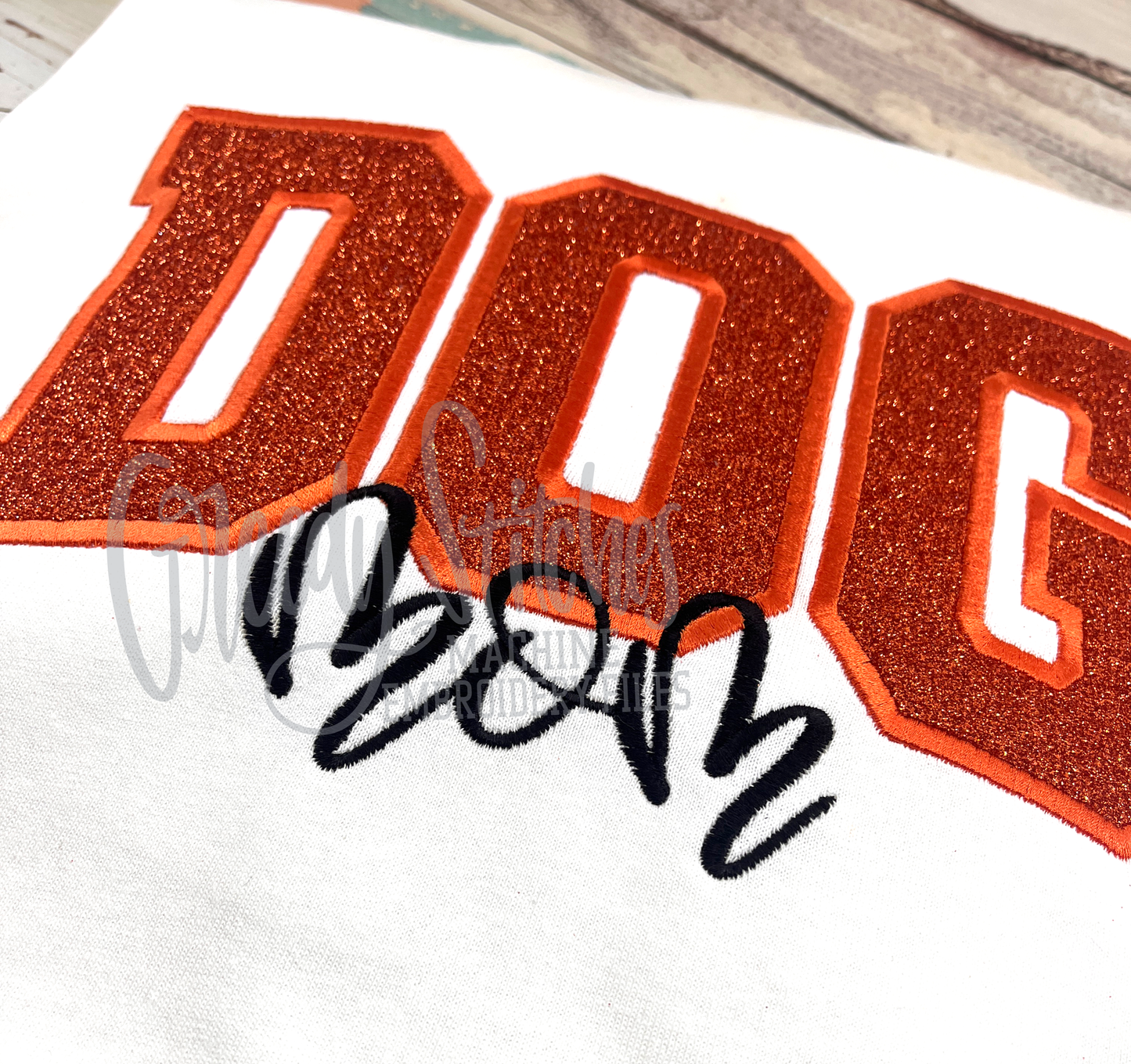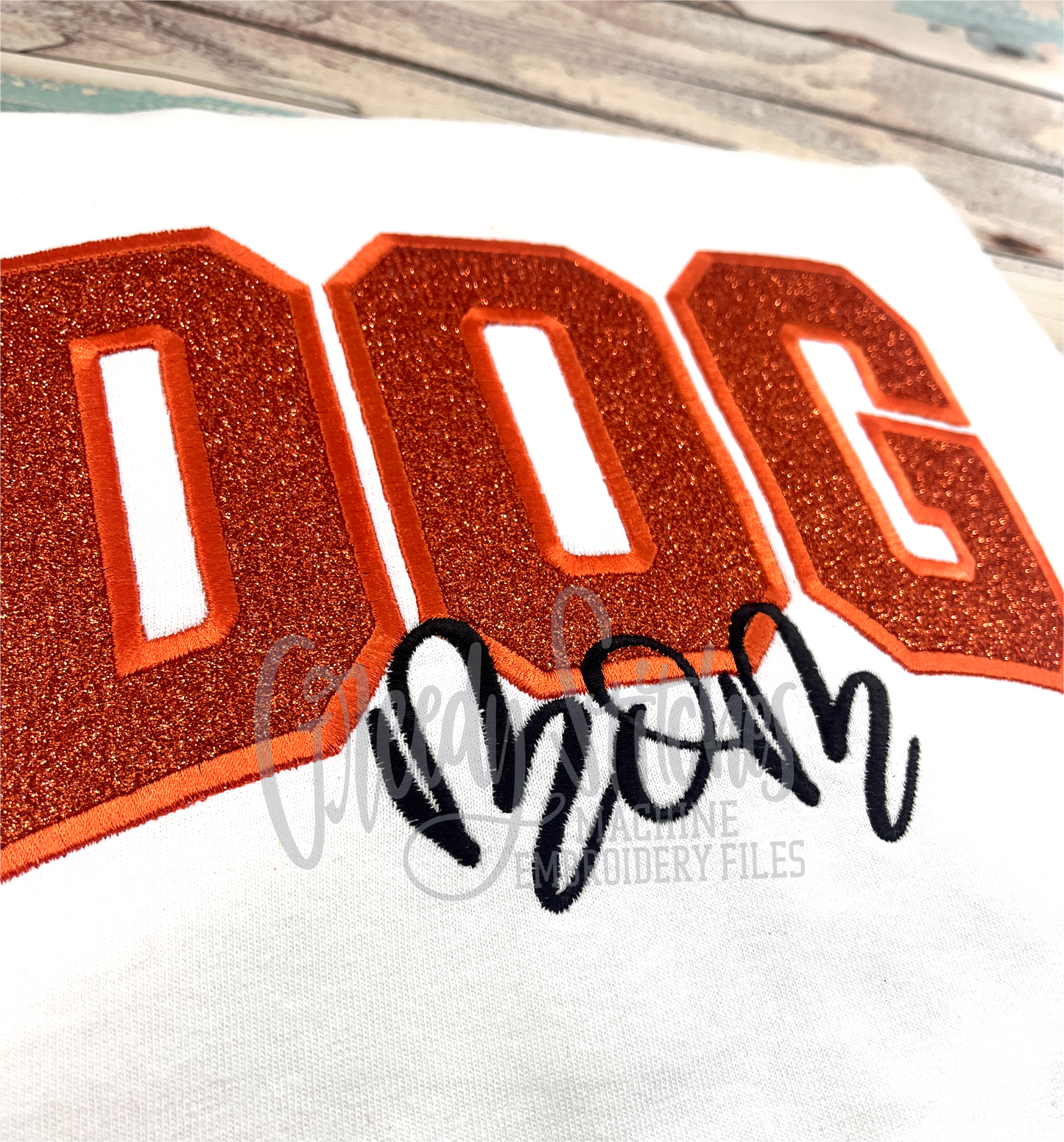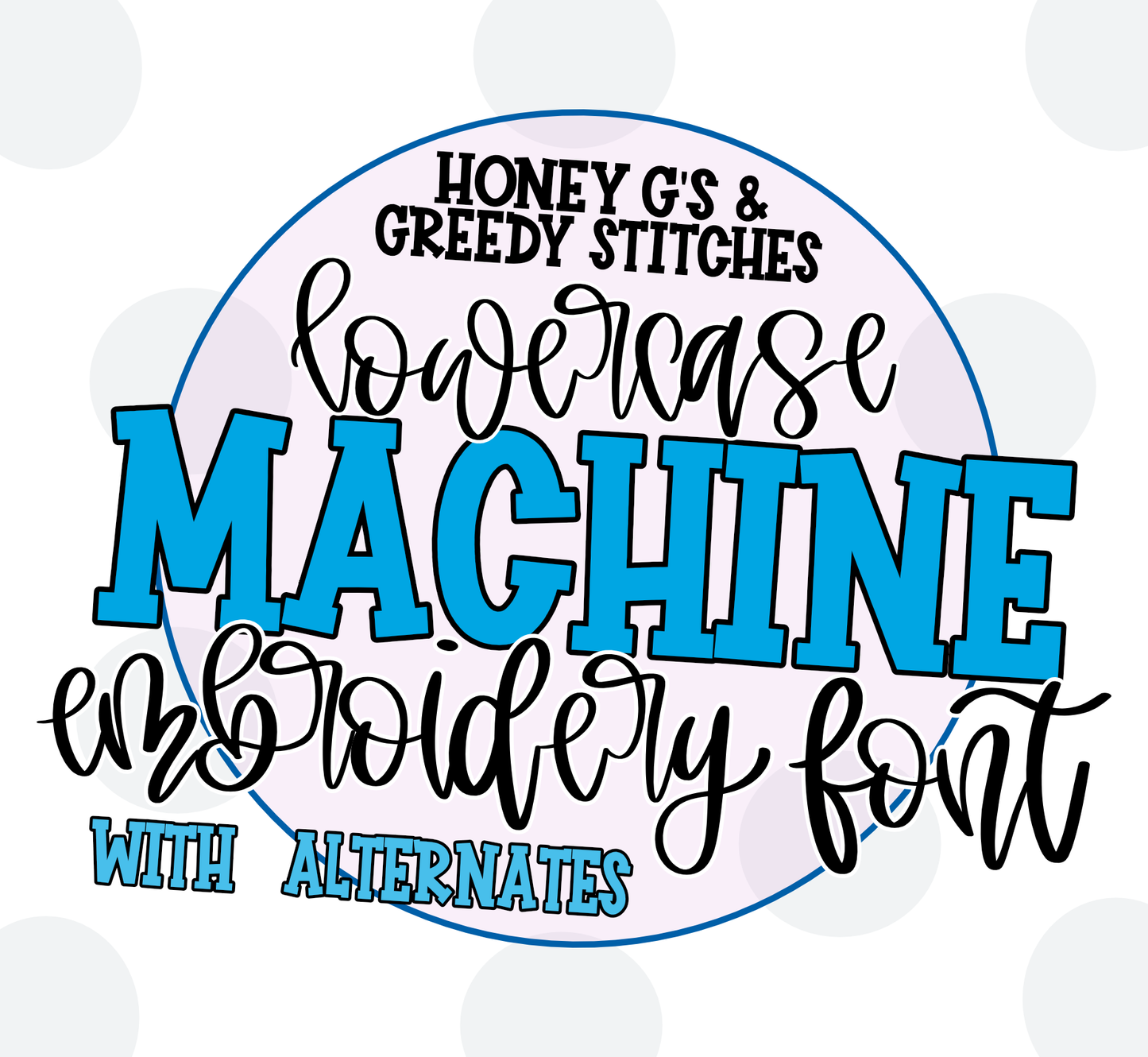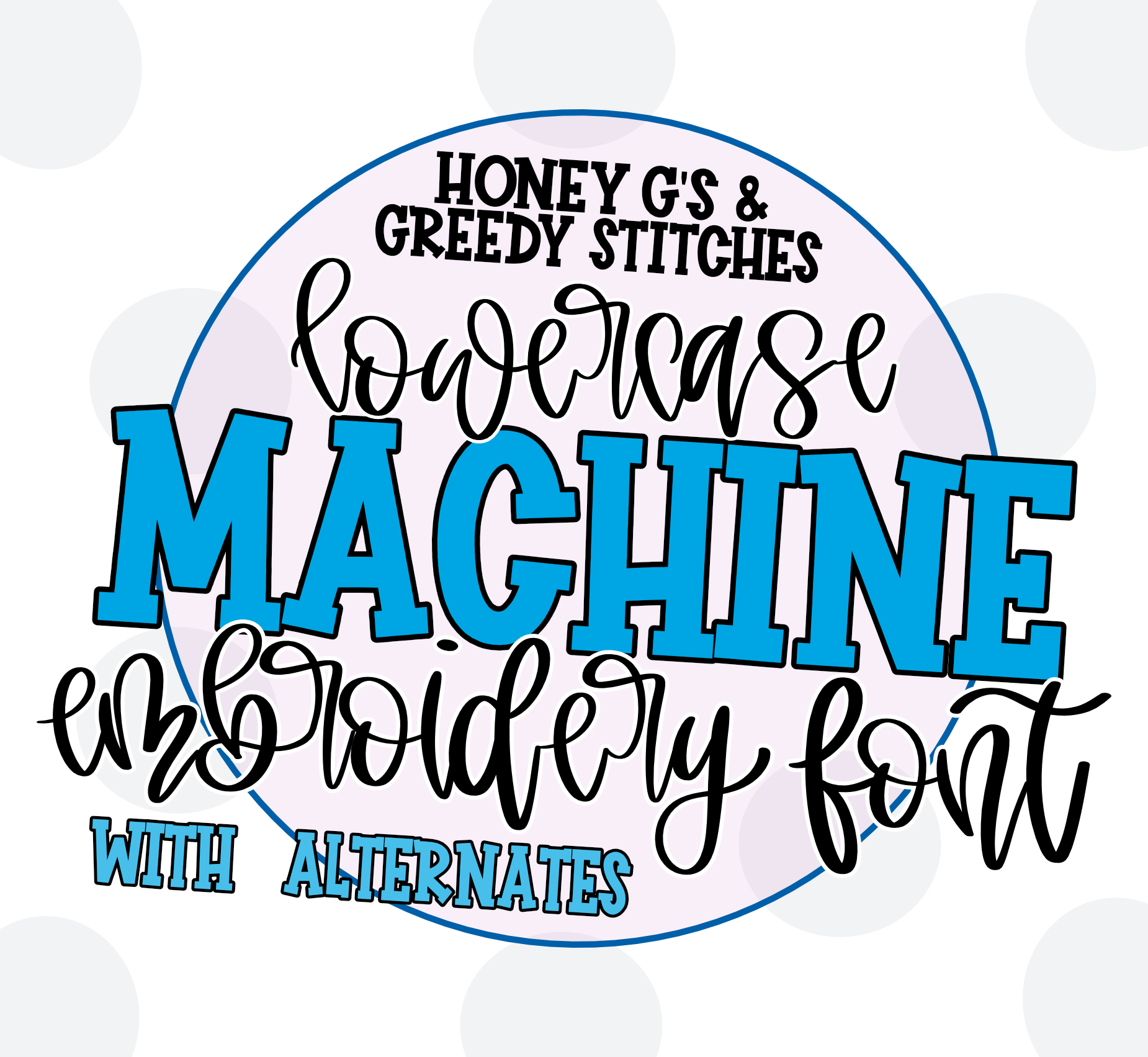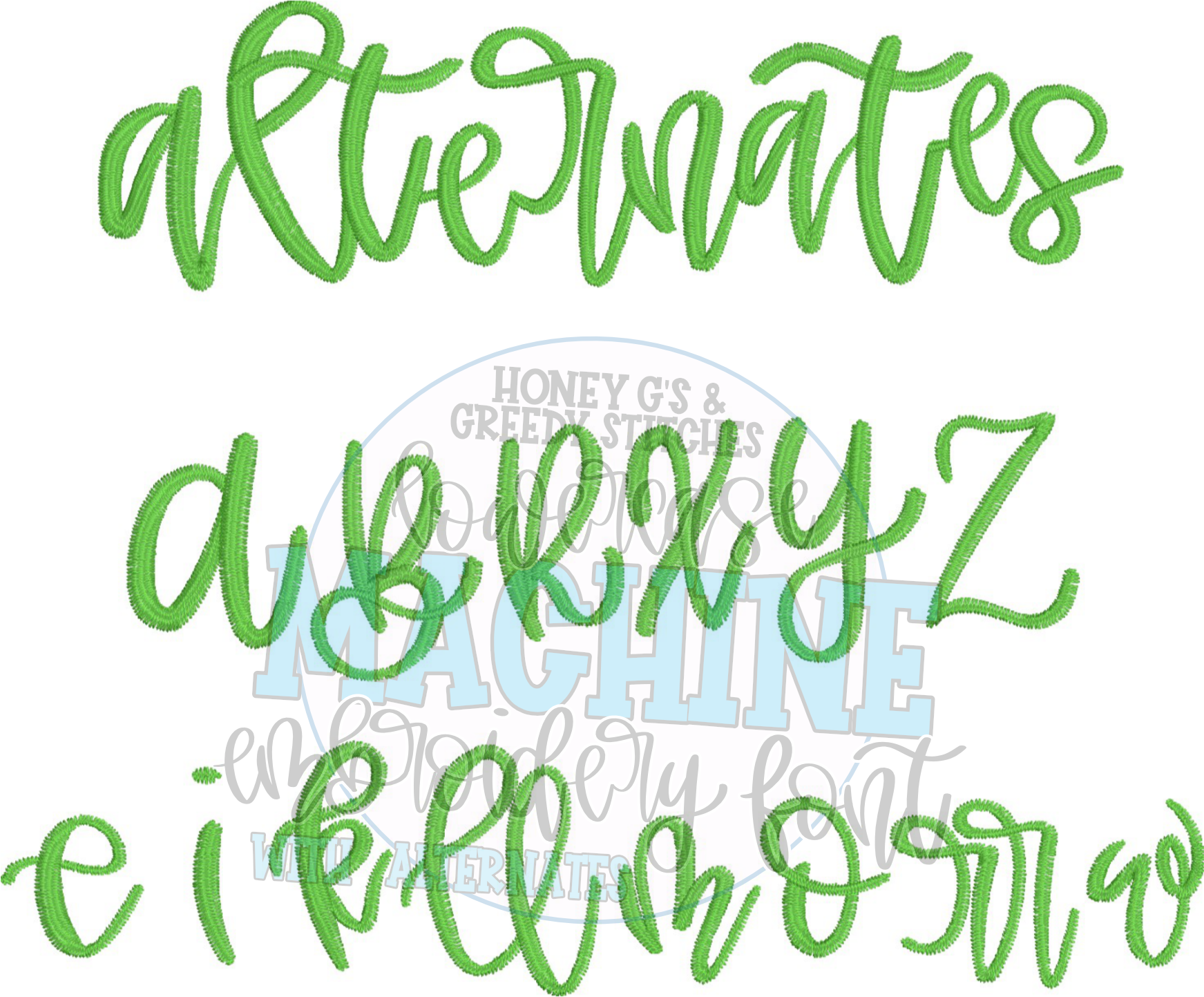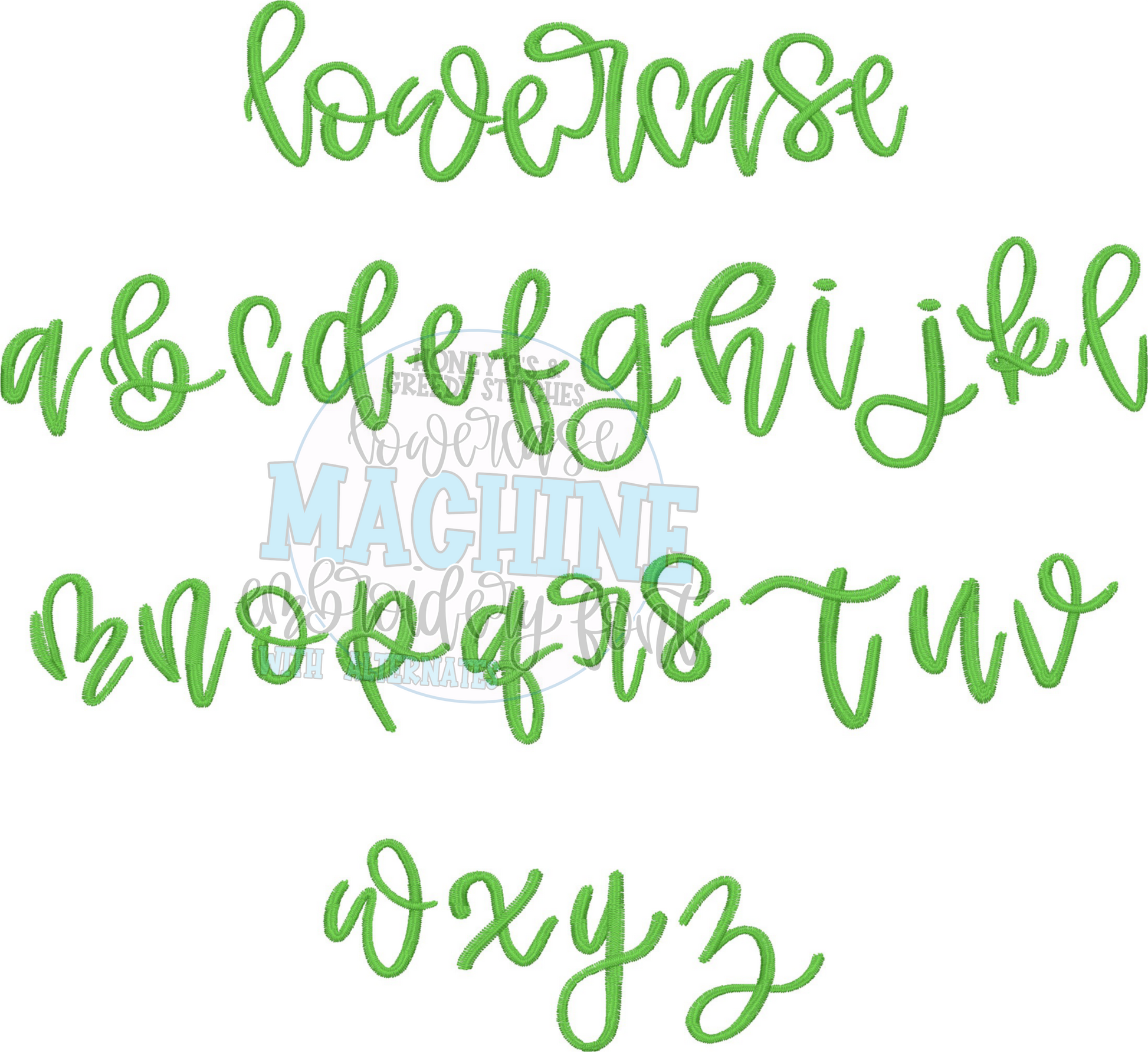
Presley Machine Embroidery Font - 5 Sizes
This is a satin stitch machine embroidery font. This is a lowercase handlettered, script font. Not all letters will have alternates. This is a native BX font, and it can be sized from 1" to 3."